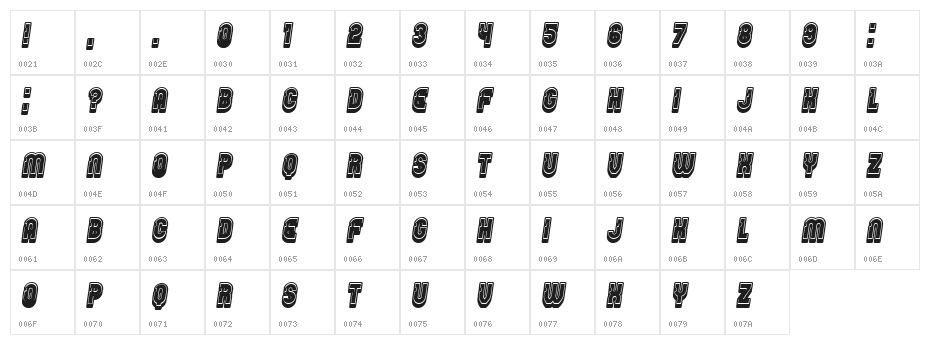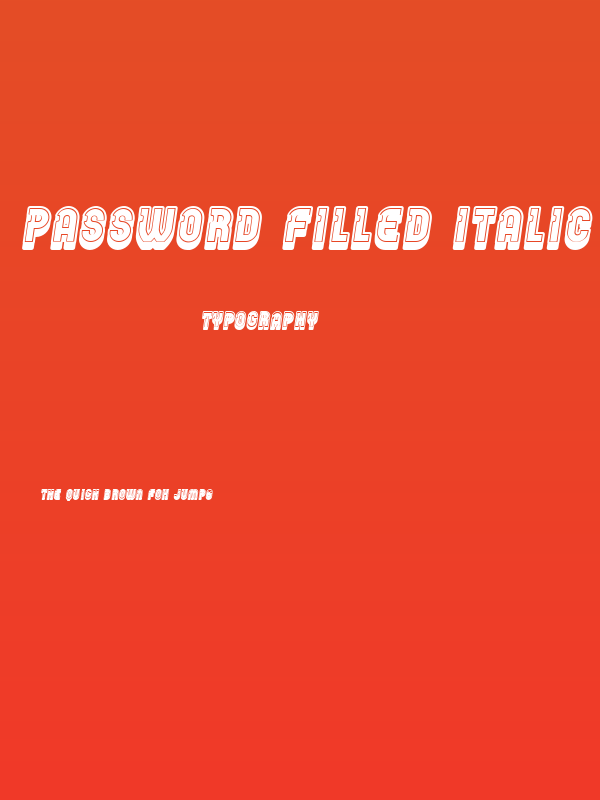
Password Filled Italic Font
Password Filled Italic Description
This font features a bold and dynamic style with a three-dimensional effect, achieved through the use of thick outlines and inner shadows. The characters are uppercase and have a strong presence, making them ideal for attention-grabbing designs. The letters are slightly italicized, adding a sense of movement and energy. The numbers and special characters maintain the same bold and outlined style, ensuring consistency across all glyphs. This font is well-suited for projects that require a standout, impactful typeface.
| Proposed Projects | Ideal for posters, headlines, logos, and any design needing a bold statement. |